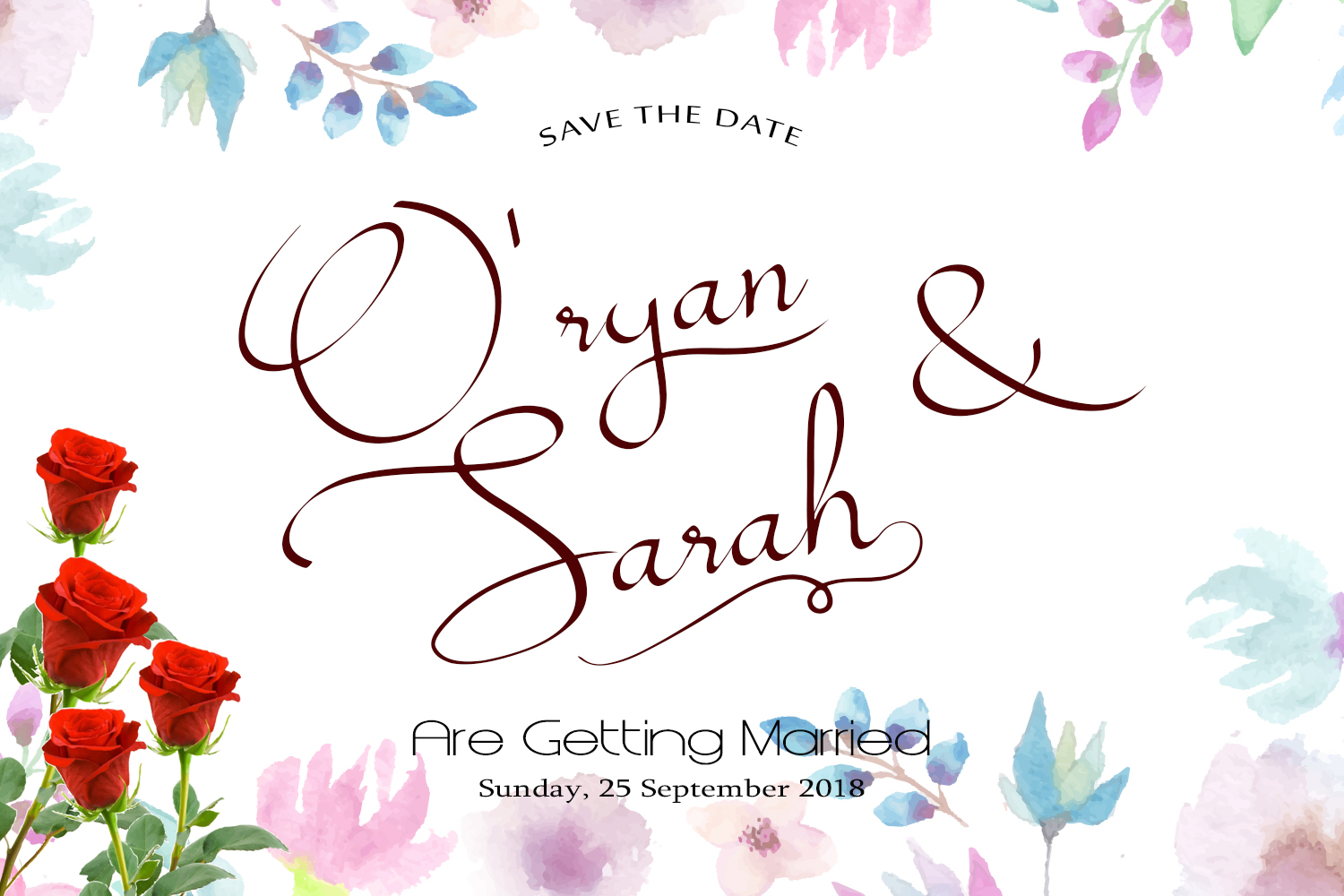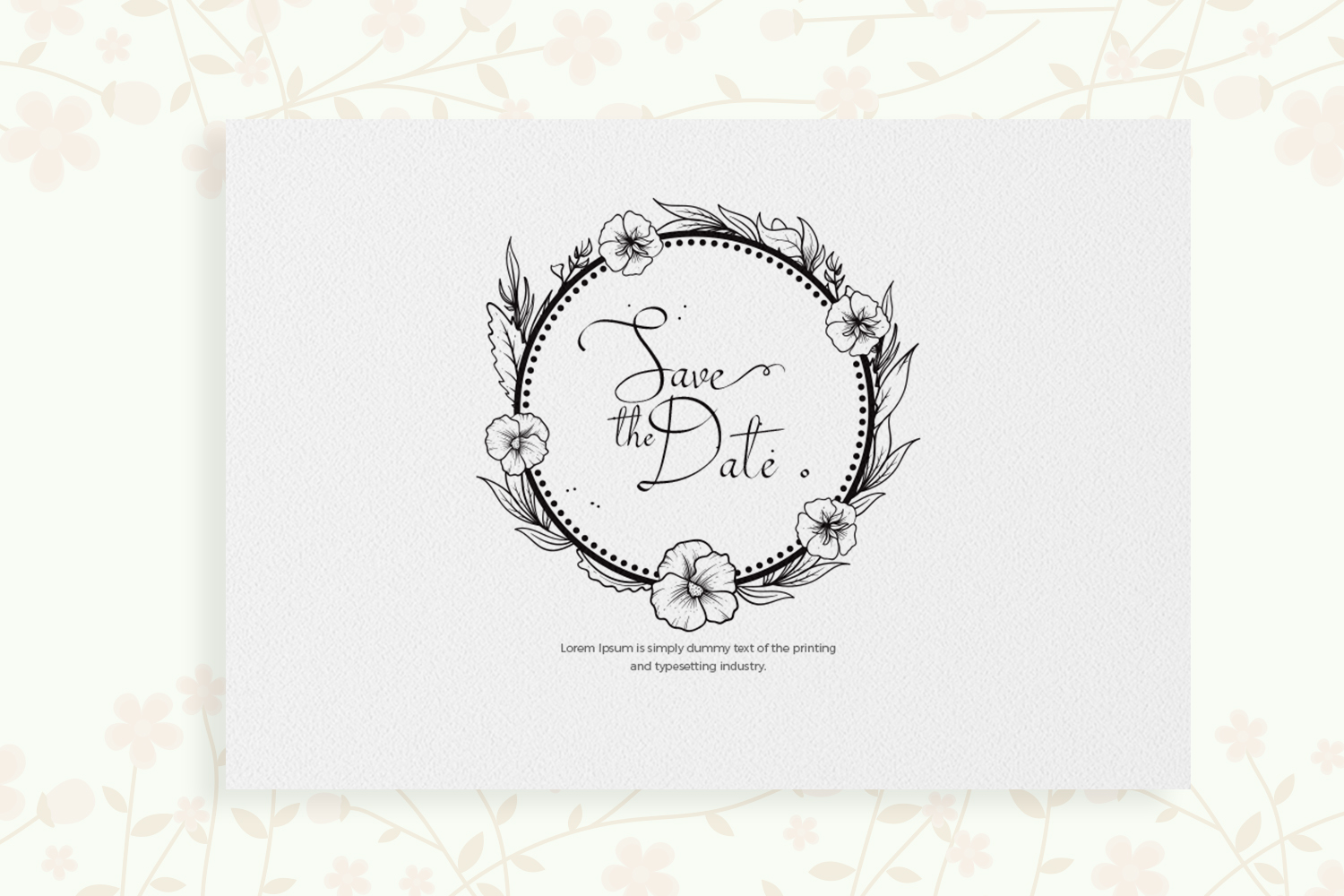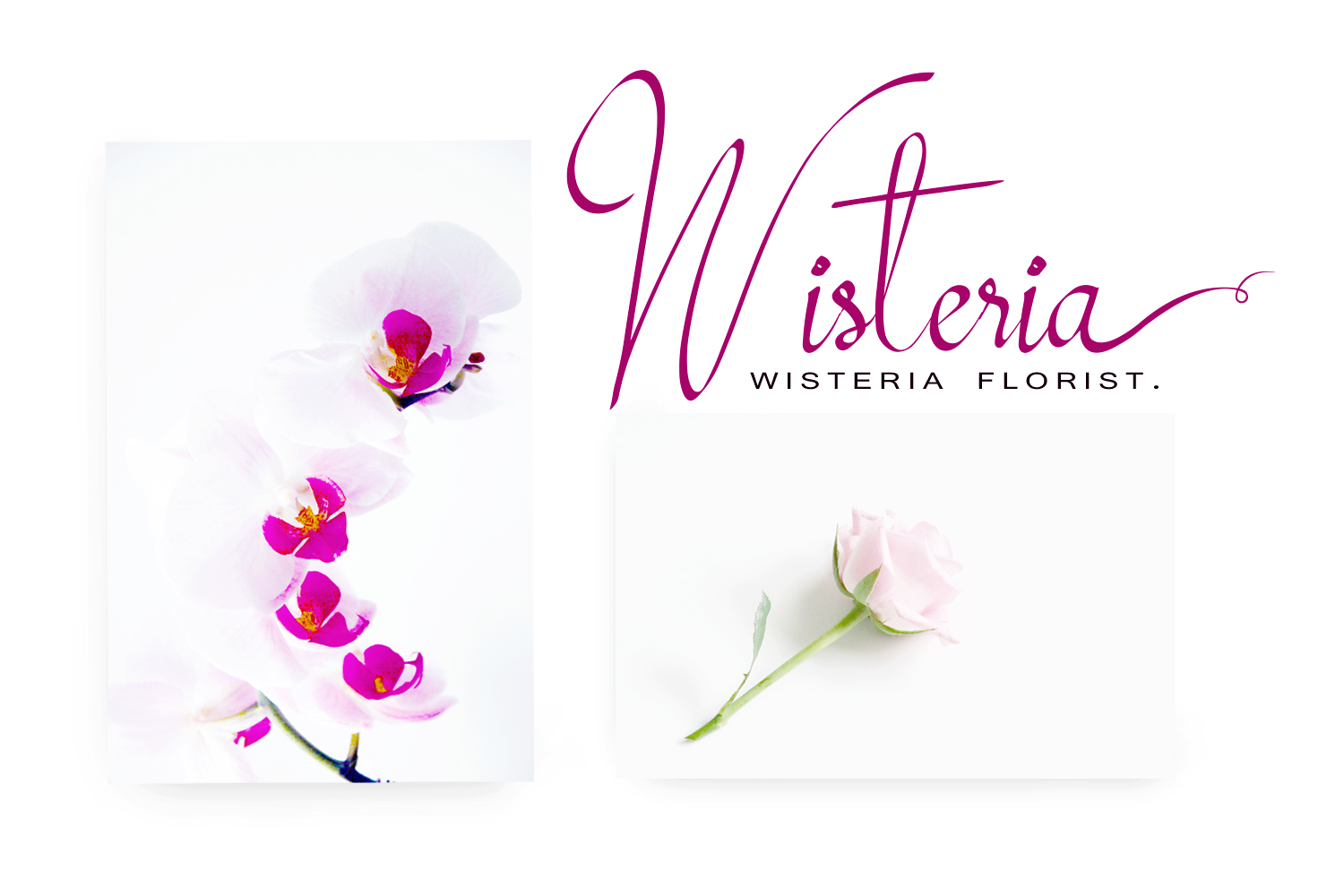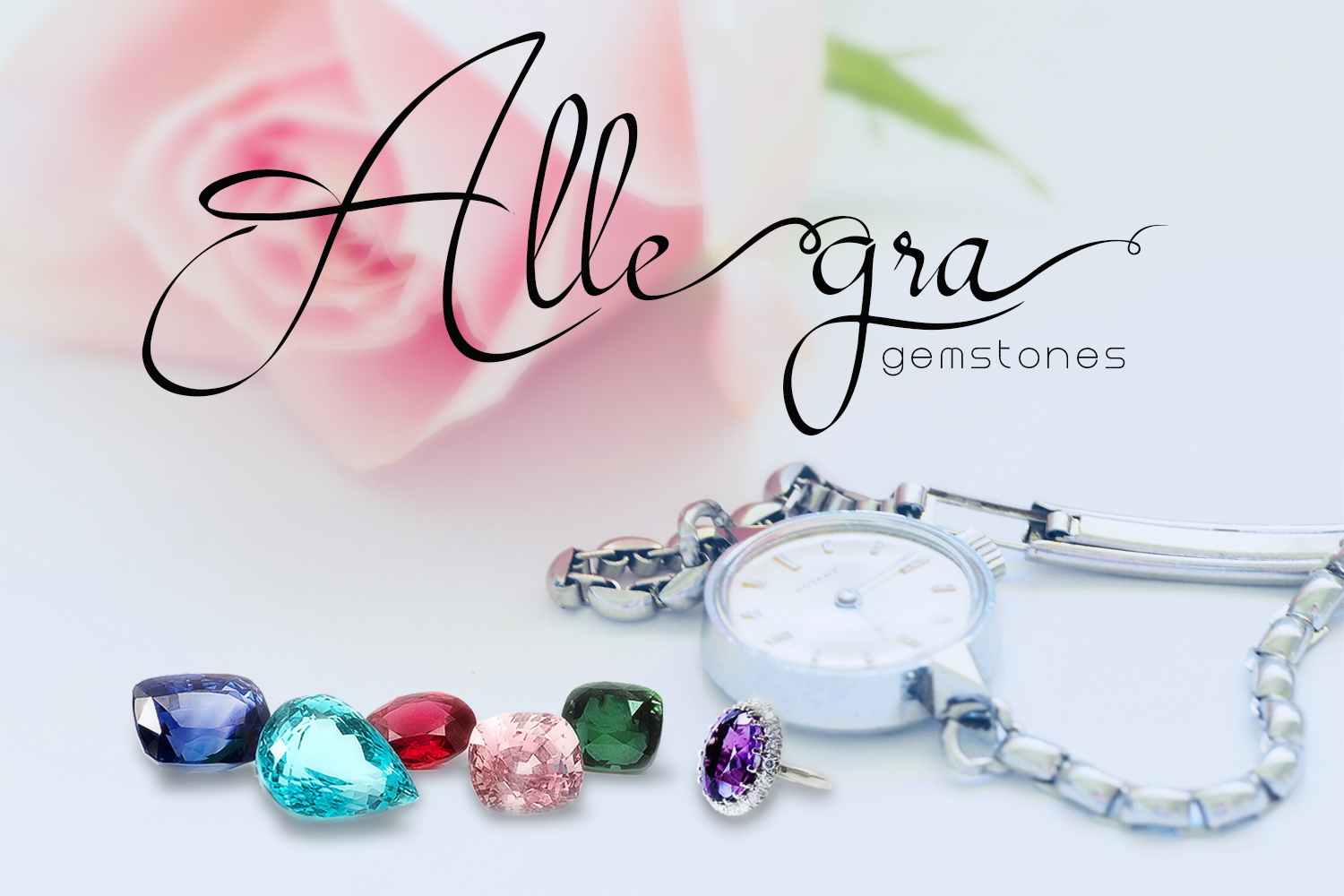
Free Font Mollucash
Free Font Mollucash is a calligraphy typeface (hand-drawn) It is perfect for branding, wedding invites and cards, fashion, and creative quotes.
Mollucash includes a full set of beautiful uppercase and lowercase letters, numerals, a large range of punctuation and ligatures and stylistic alternates, giving realistic hand-lettered style. This free typeface was designed by a talented Kudo Creative. If you like it don’t forget to check out the full version.